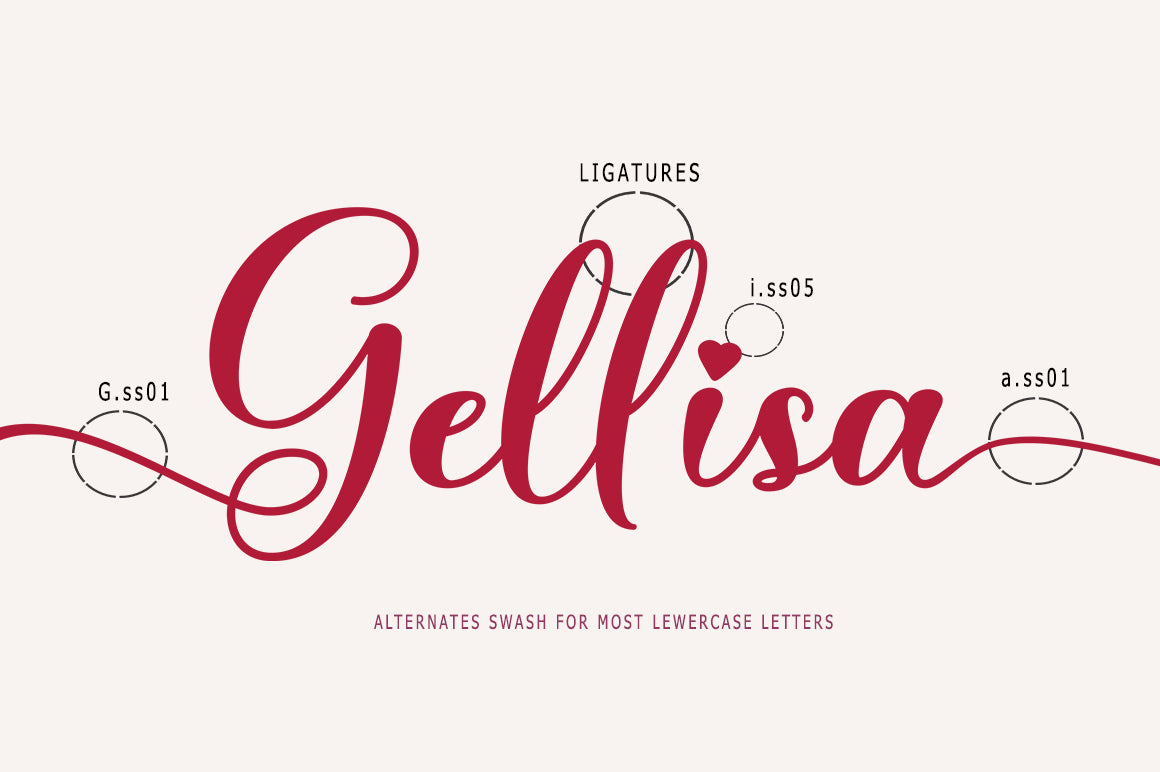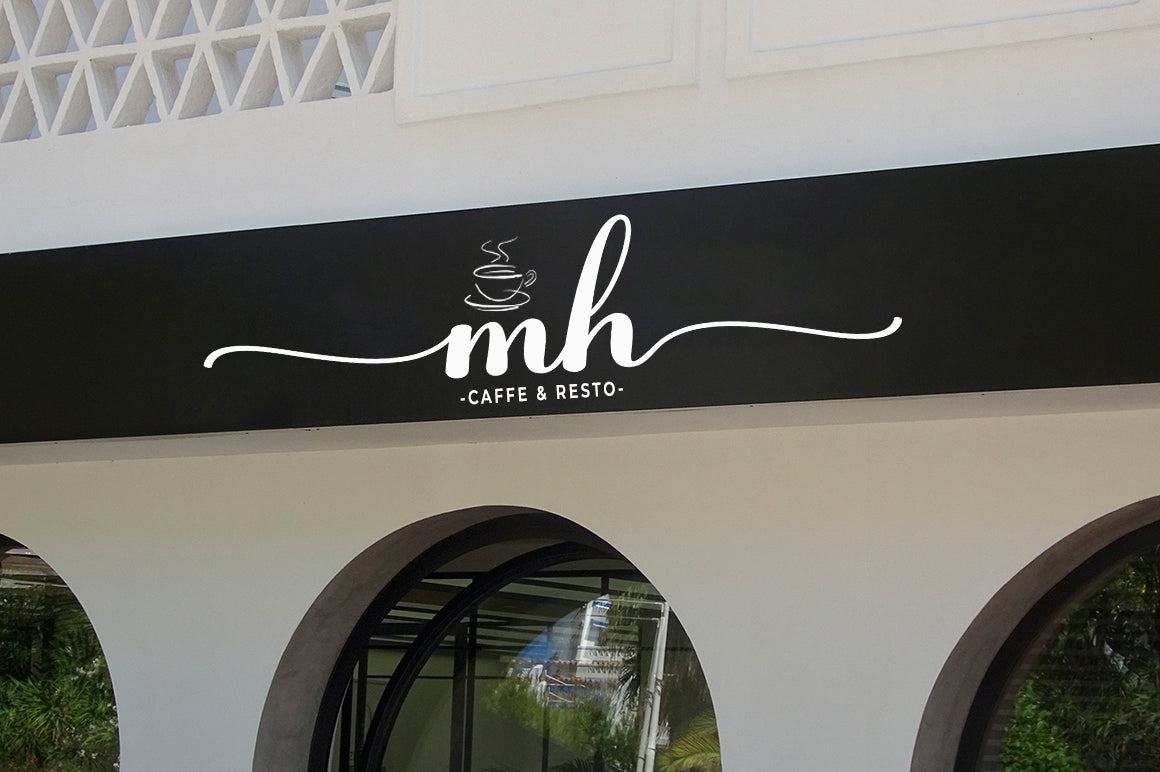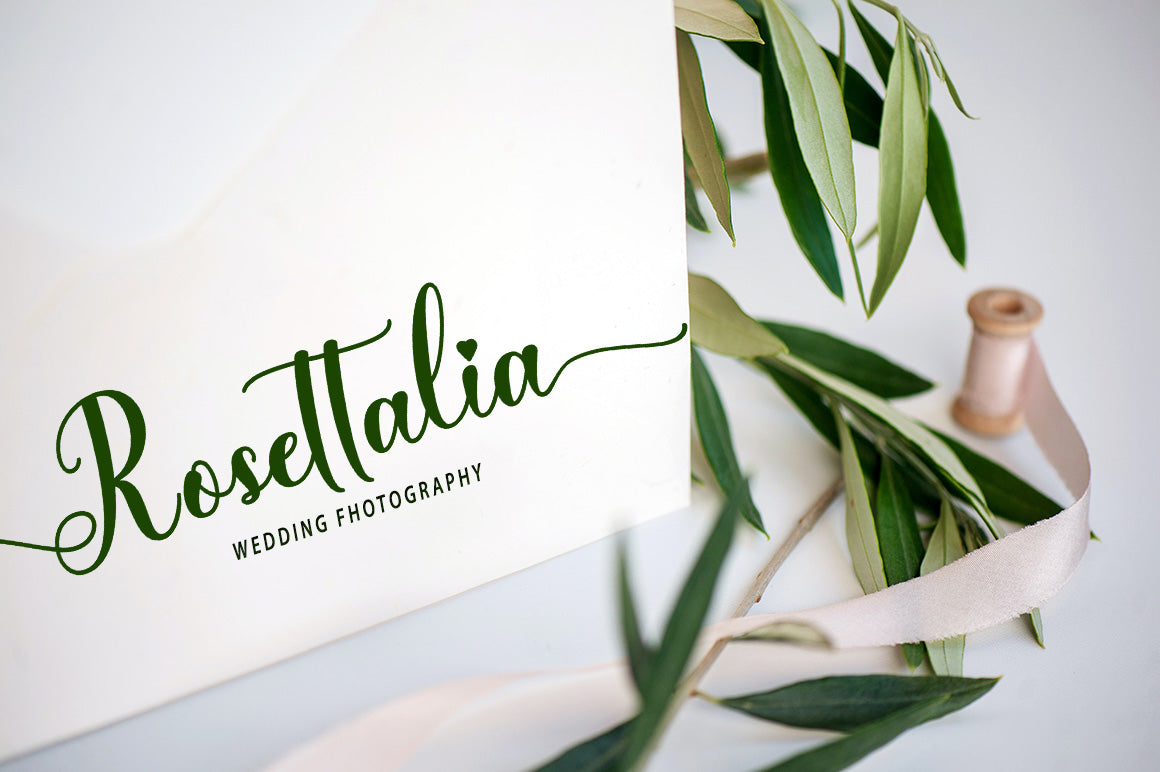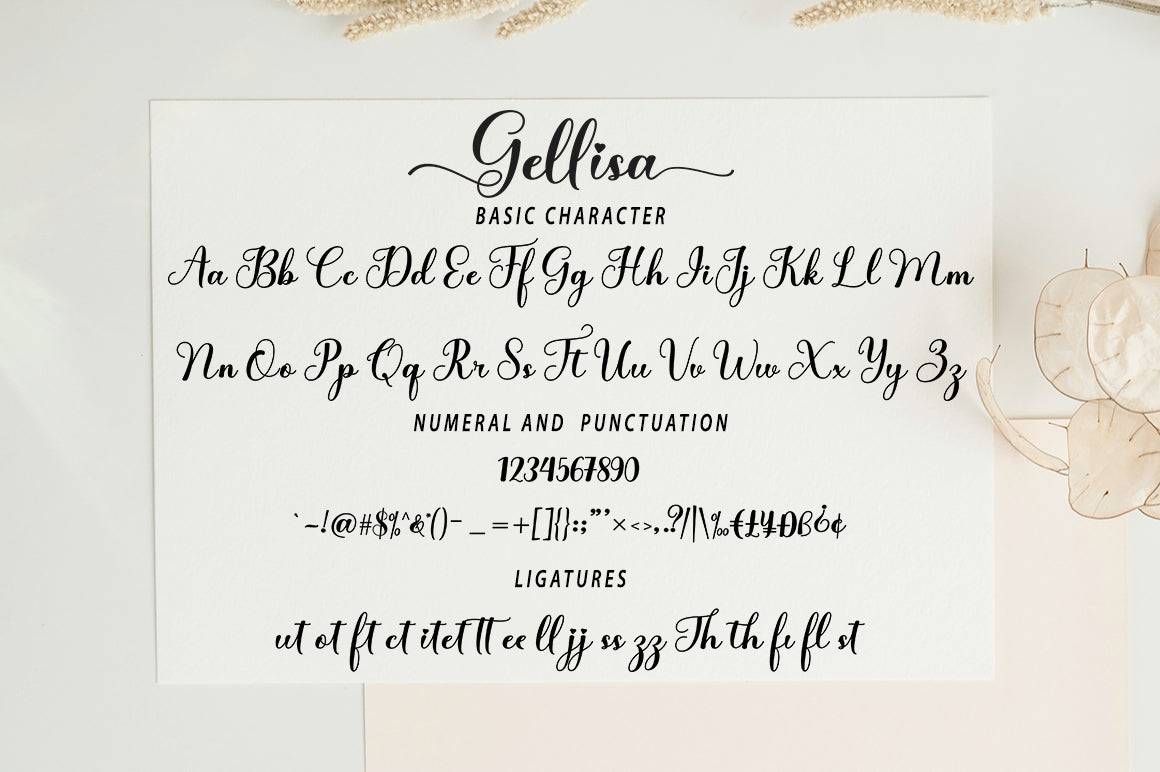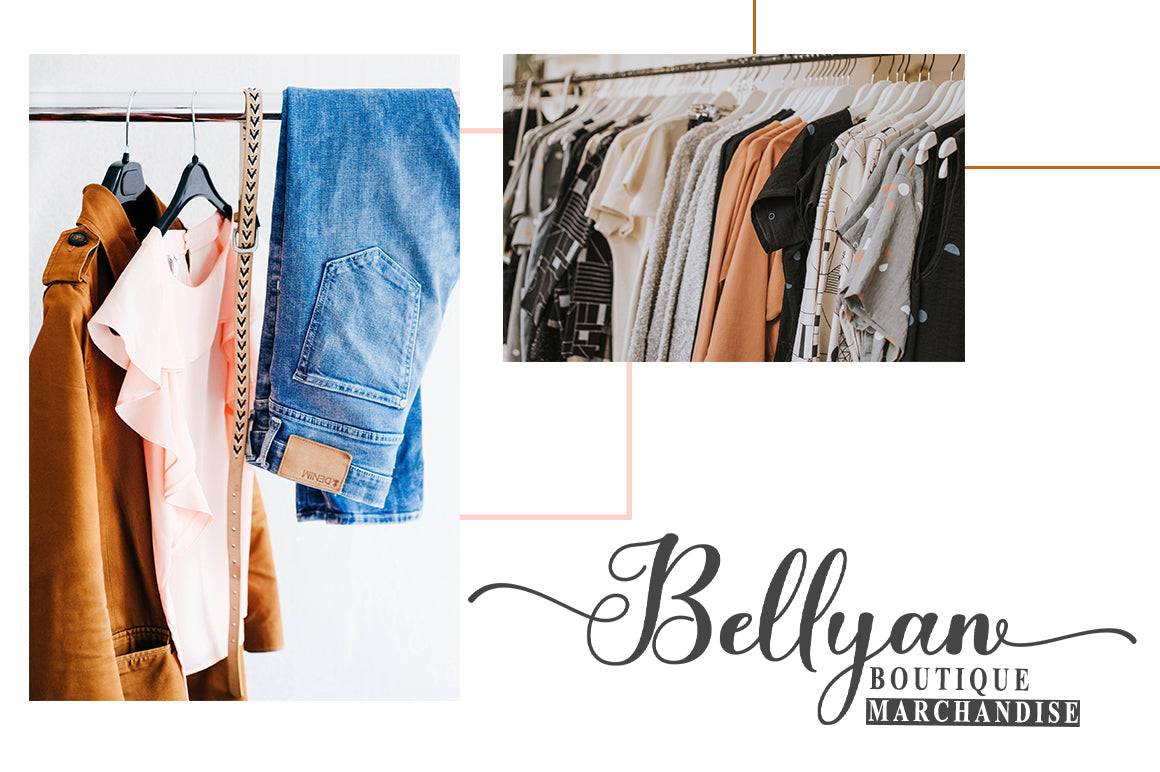
About Gellisa Script
INTRODUCING Gellisa Script is an elegant calligraphy font, including Regular and Slant. This typeface is casual and beautiful with swash. Can be used for various purposes. such as logos, product packaging, wedding invitations, branding, headlines, signage, labels, signatures, book covers, posters, quotes, and more. Gellisa Script includes a change in OpenType language style, binder and international support for most Western languages. To activate the OpenType Stylistic alternative, you need a program that supports OpenType features such as Adobe Illustrator CS, Adobe Indesign & CorelDraw X6-X7, Microsoft Word 2010 or newer versions. How to access all alternative characters using Adobe Illustrator: https://www.youtube.com/watch?v=XzwjMkbB-wQ Gellisa Script is coded with Unicode PUA, which allows full access to all additional characters without having special design software. Mac users can use the Font Book, and Windows users can use the Character Map to view and copy one of the additional characters to paste into your favorite text editor / application. How to access all alternative characters, using Windows Character Map with Photoshop: https://www.youtube.com/watch?v=Go9vacoYmBw If you have questions, feel free to contact me via email. Thank you very much for finding and enjoying it!